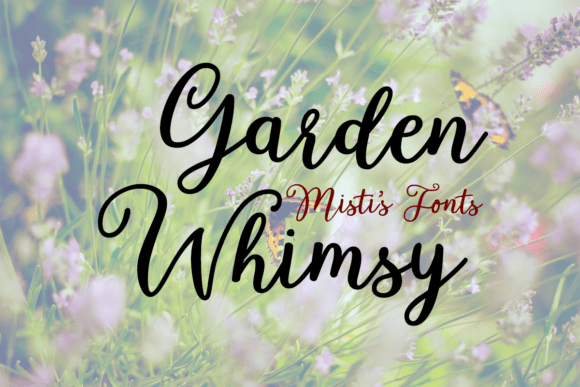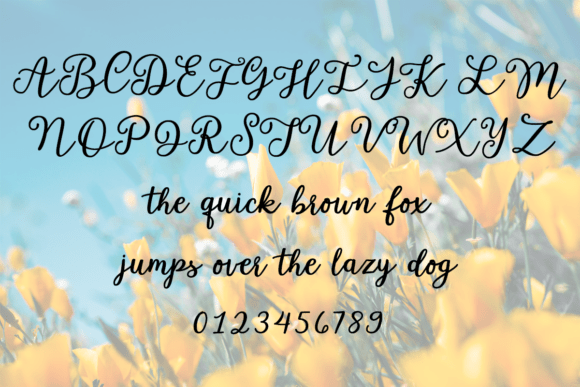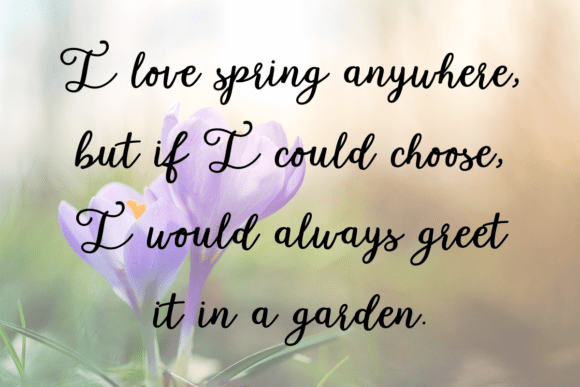
Garden Whimsy Font: A Cute Cursive Script for DIY & Cricut Projects
About the Garden Whimsy Font
Introducing the Garden Whimsy Font, a beautifully crafted typeface designed to elevate your creative projects. Garden Whimsy is a playful, bouncy cursive font full of charm and character. Perfect for invitations, logos, and creative projects, its flowing letters add a whimsical touch to any design. Let your words bloom with Garden Whimsy!
Its playful energy makes it ideal for children’s books, wedding invitations, or branding for businesses focused on handmade goods or artisanal products. Use it sparingly for headlines, short quotes, or logos; it’s less suitable for body text or lengthy paragraphs due to its cursive nature and potential for low readability.
Garden Whimsy pairs well with clean sans-serif fonts like Open Sans for a balanced contrast, or with a more geometric sans-serif such as Montserrat for a modern feel. A simple serif like Lora could add a touch of sophistication, grounding the whimsicality of Garden Whimsy. Avoid pairing it with other script fonts, which would create visual overload.
The overall personality is best described as friendly and charming, with a lighthearted, slightly nostalgic feel. It projects warmth and approachability, making it a suitable choice for projects seeking a touch of whimsy without being overly childish or overwhelming.